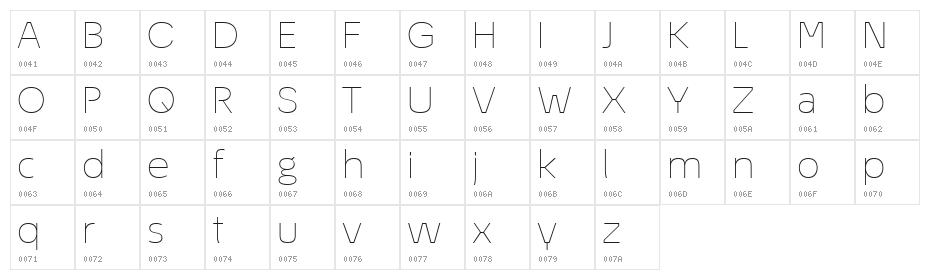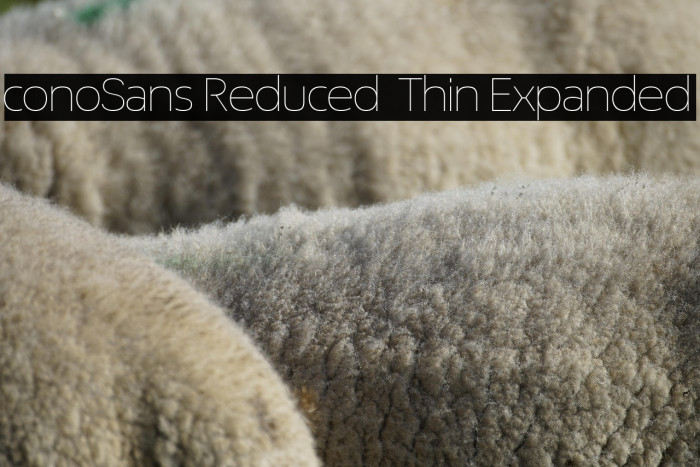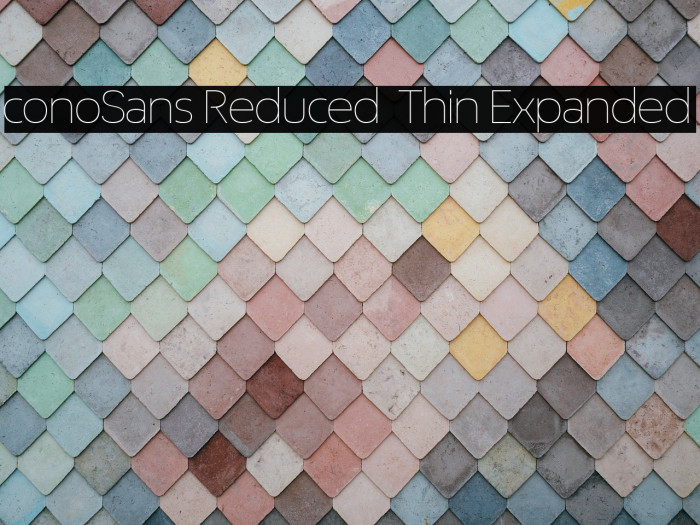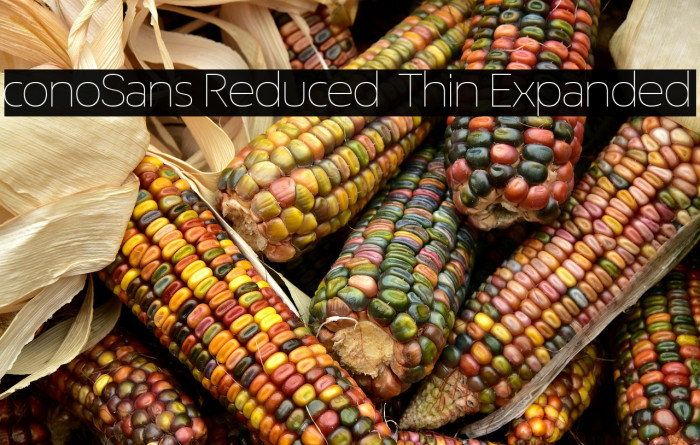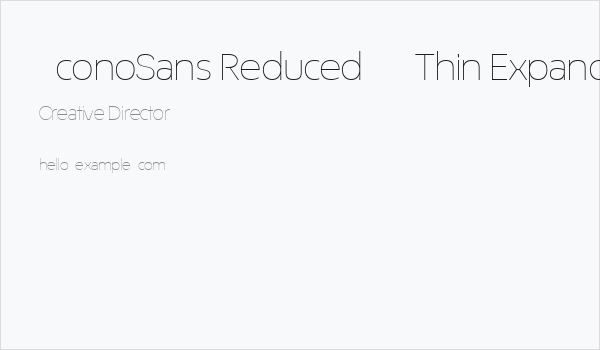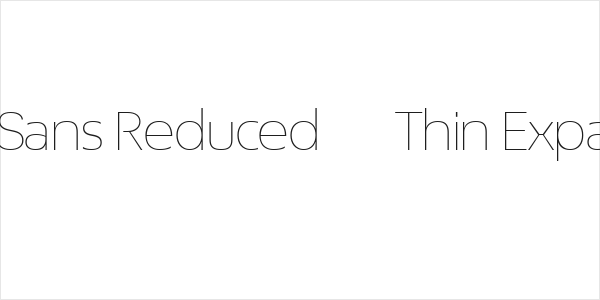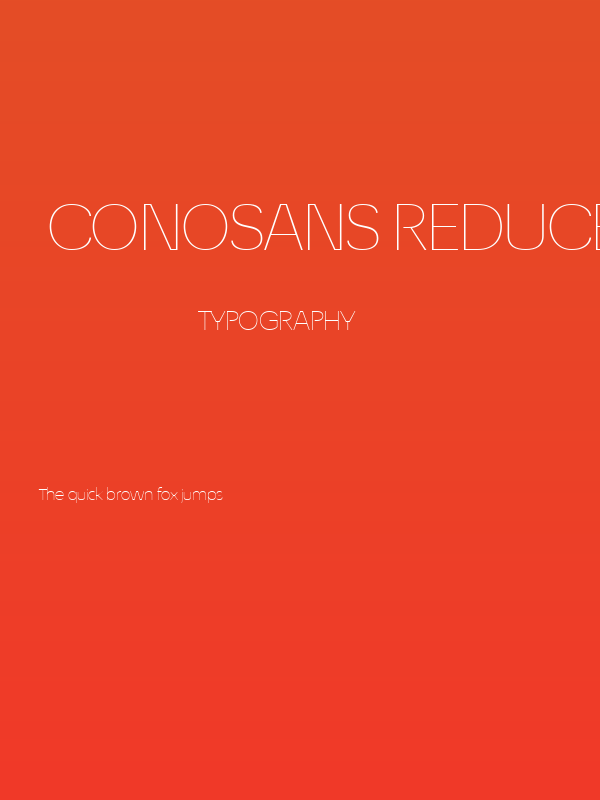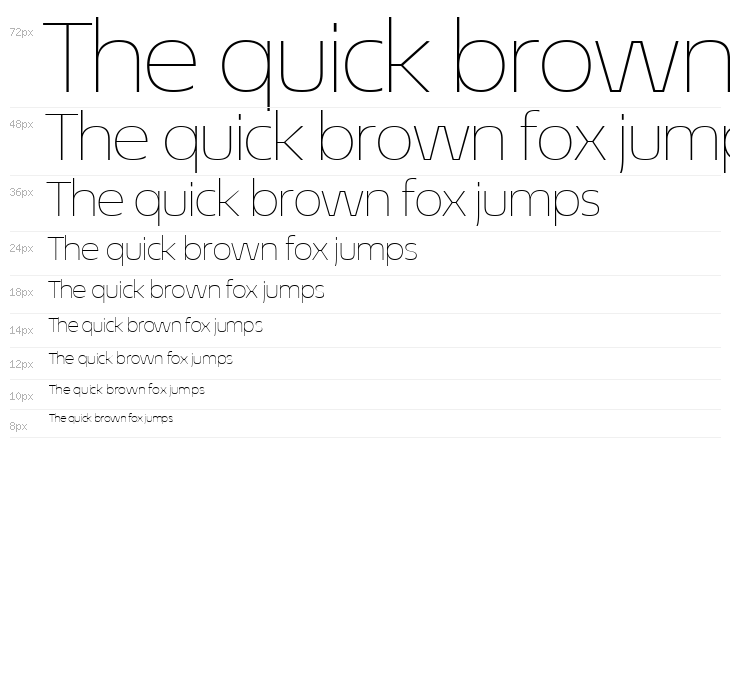
ÉconoSans Reduced 33 Thin Expanded Font
ÉconoSans Reduced 33 Thin Expanded Description
This font is characterized by its thin, clean lines and modern aesthetic. The letters are evenly spaced with a slightly expanded width, giving it a sleek and airy appearance. The design is minimalistic, with a focus on geometric shapes and a uniform stroke width throughout. The uppercase and lowercase letters maintain a consistent style, enhancing readability while retaining a contemporary look. This font is ideal for projects that require a modern and sophisticated touch, such as branding, digital interfaces, and editorial design.
| Proposed Projects | Ideal for branding, digital interfaces, editorial design, and minimalist projects. |